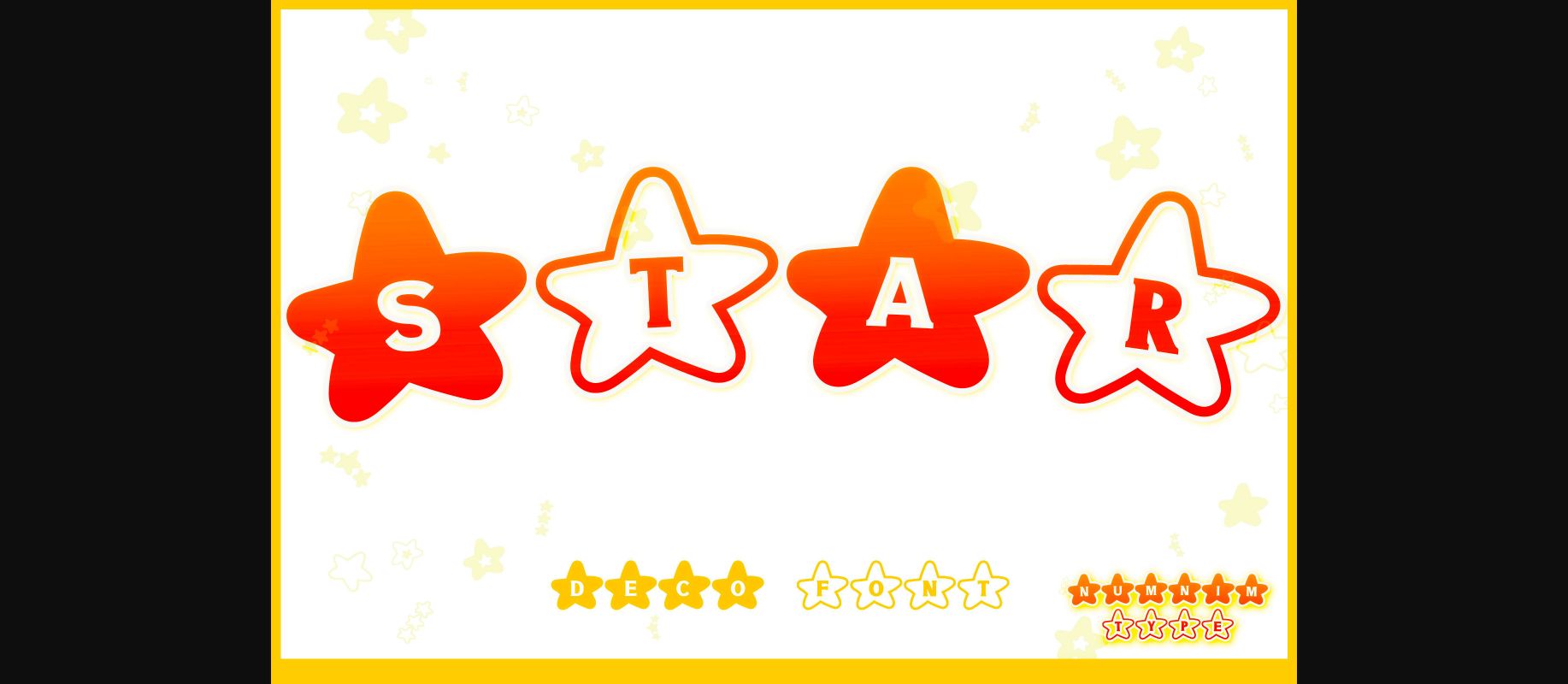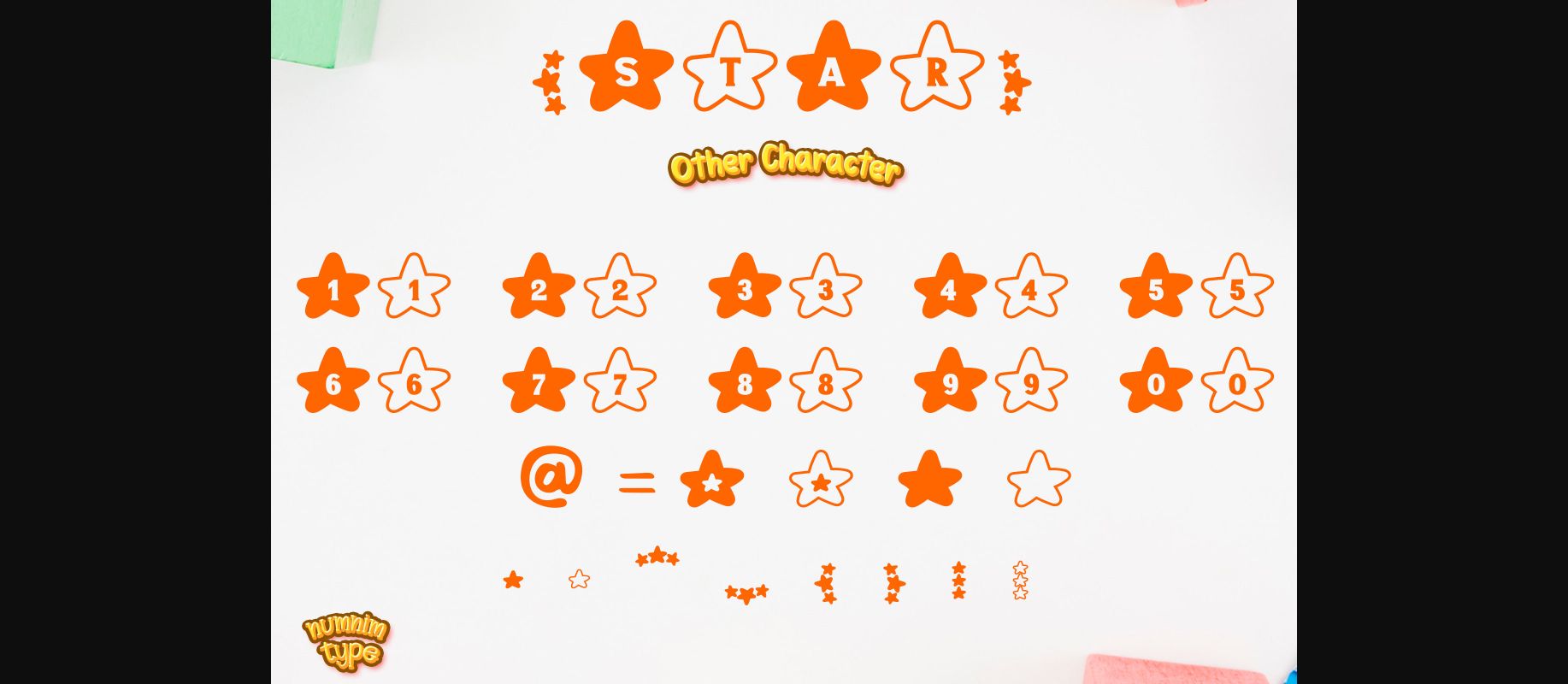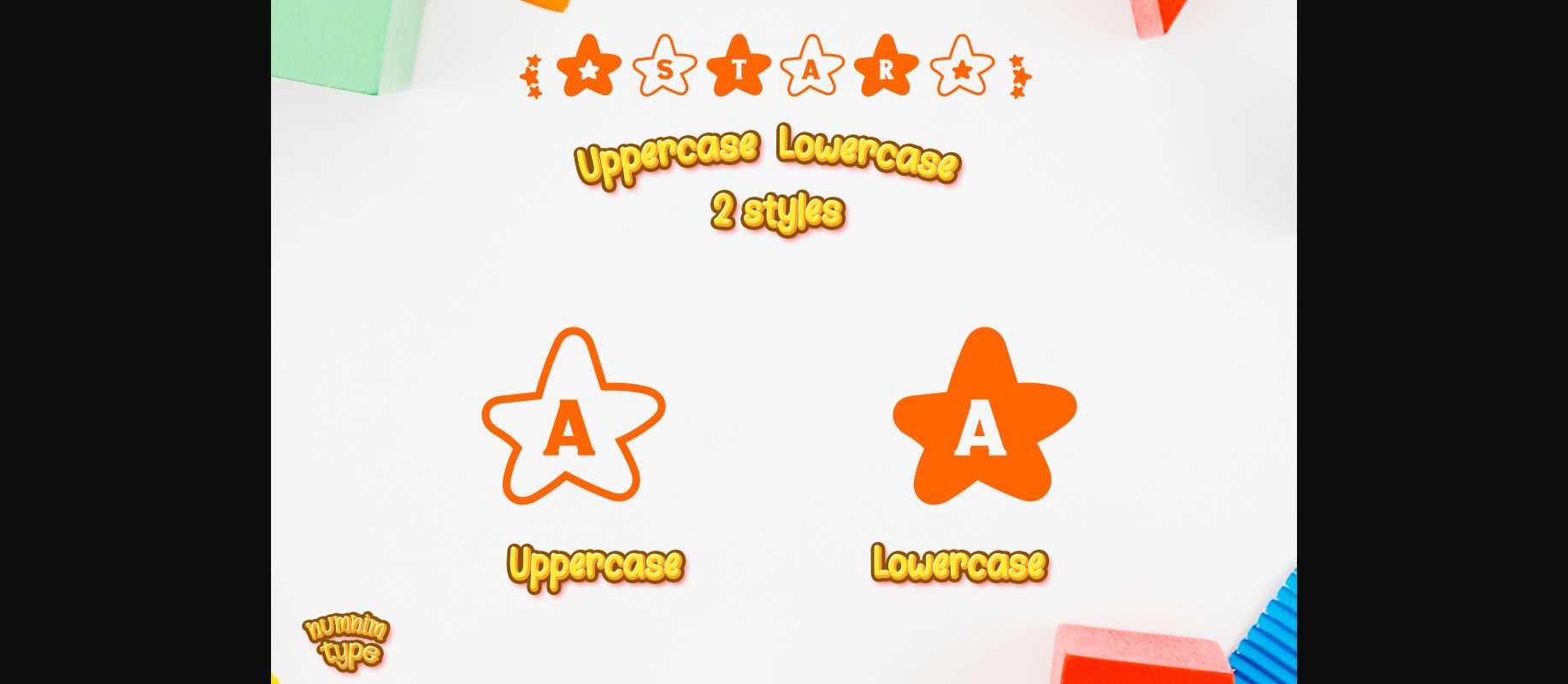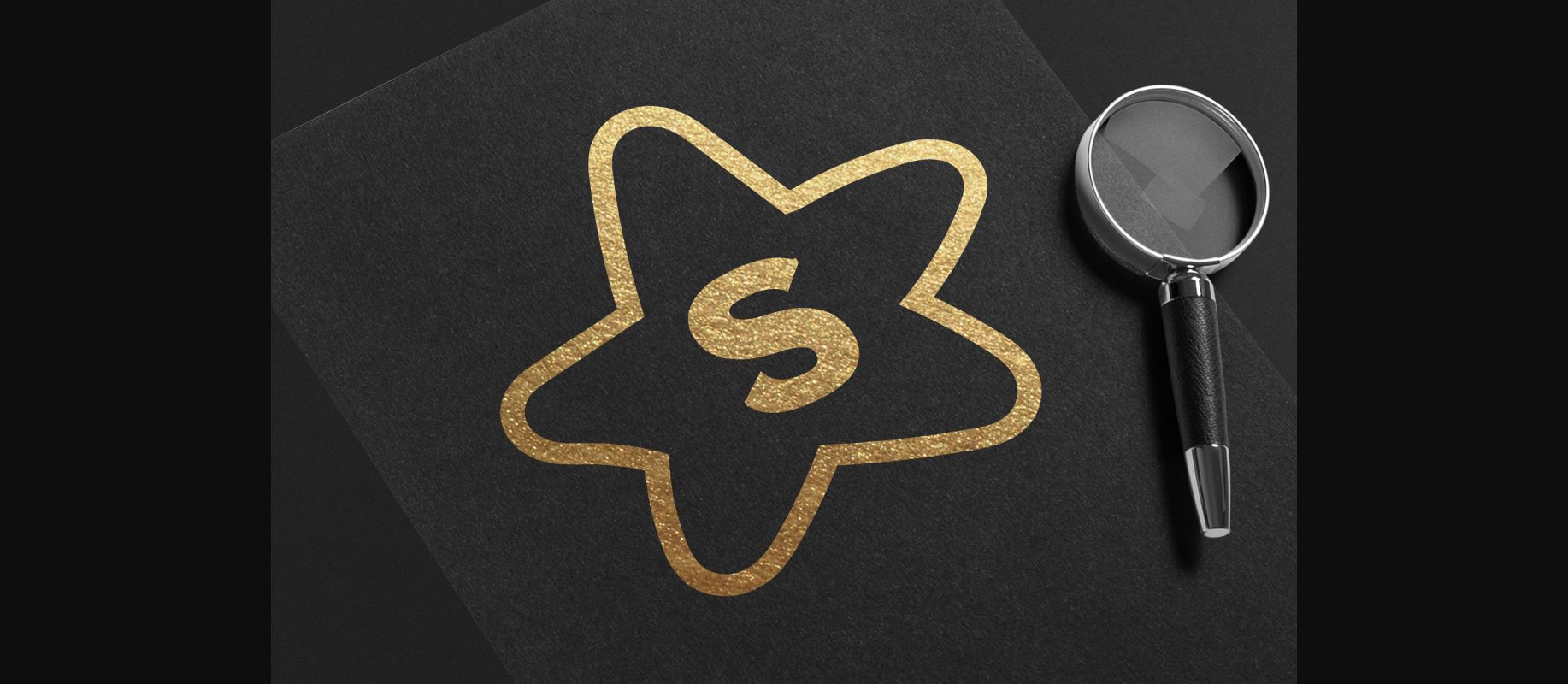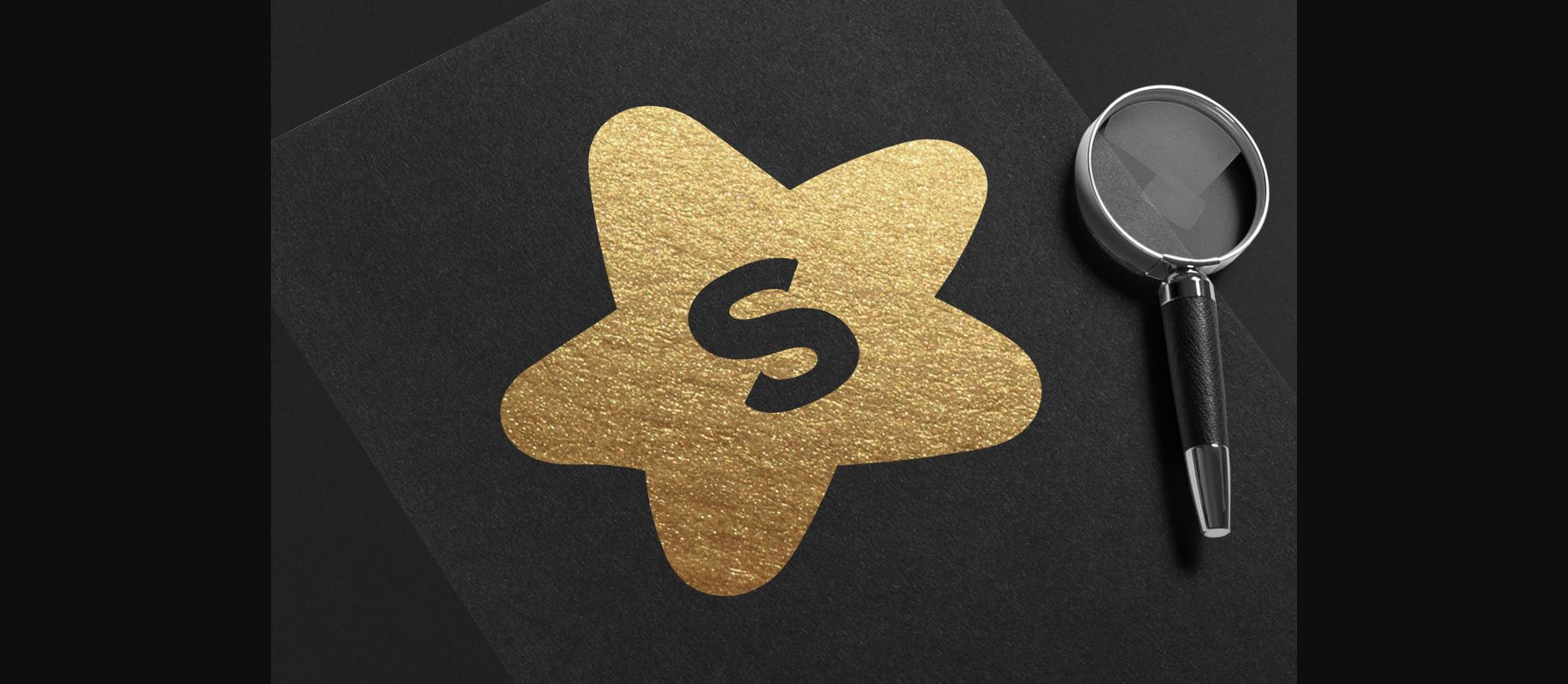
About Star Font
Star is a cool and uniquely crafted decorative font. Its fun and playful characters make it the perfect font for stickers, mugs, t-shirts, ornaments, independence day event cards, event invitations, and more!